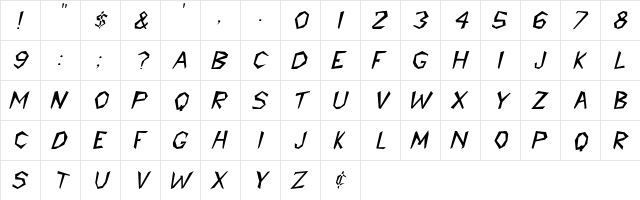
Andorra Italic Italic
Design Context for Andorra Italic Typeface
Andorra Italic is a composed and adaptable typeface that performs quietly and consistently across a wide range of design contexts. The slanted form adds forward momentum and visual energy.
Pro Tip: Try Andorra Italic for annotation and caption copy alongside an upright companion — the contrast in angle creates a dynamic but ordered typographic system.